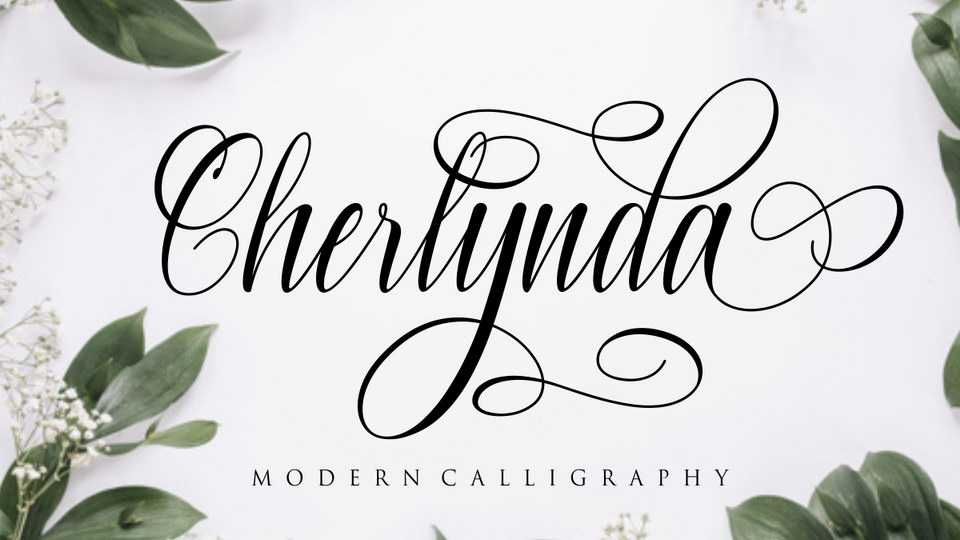
Download Cherlynda font, an elegant and flowing handwritten font. Cherlynda features a varying baseline, smooth lines, gorgeous glyphs and stunning alternates.
Designer: Fikry Alif